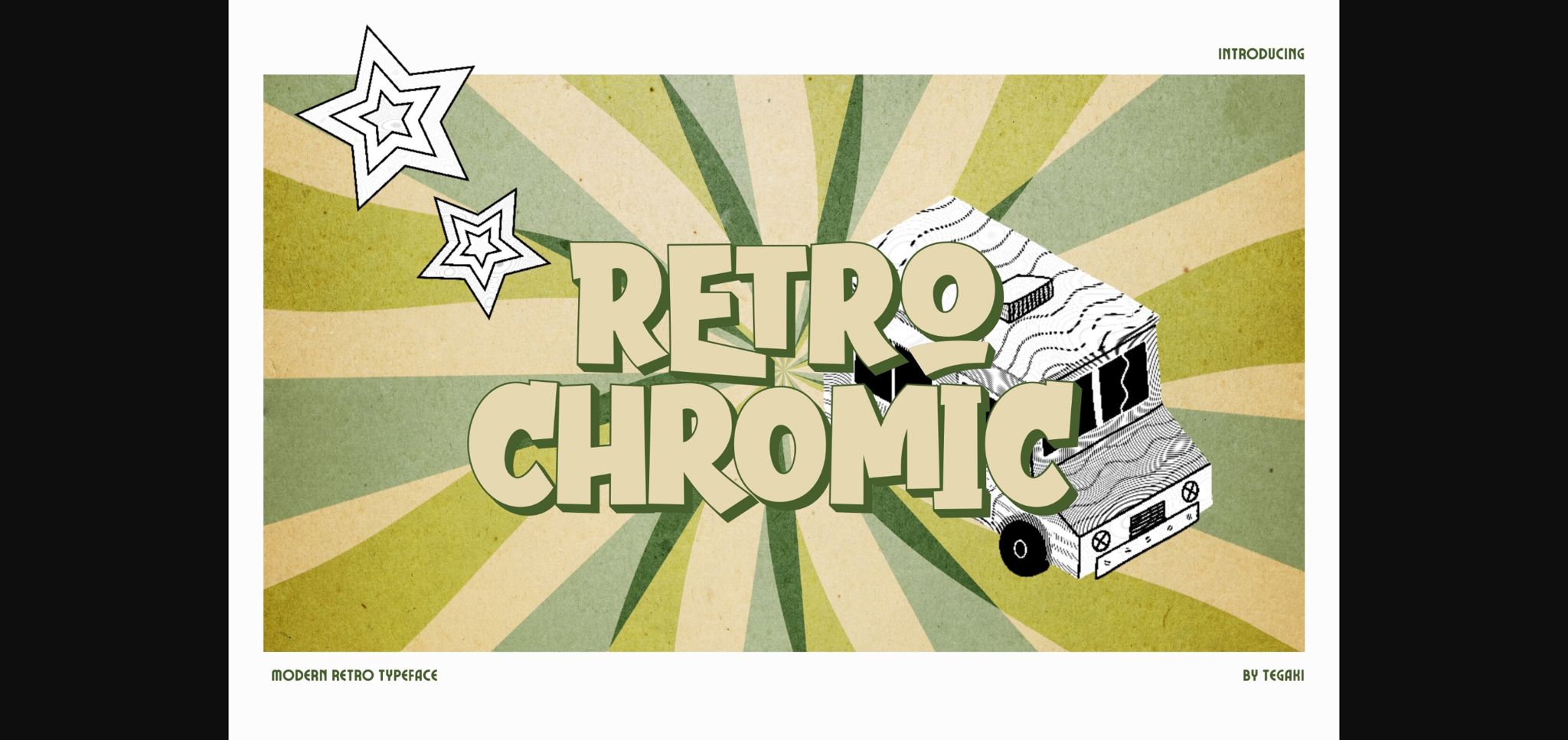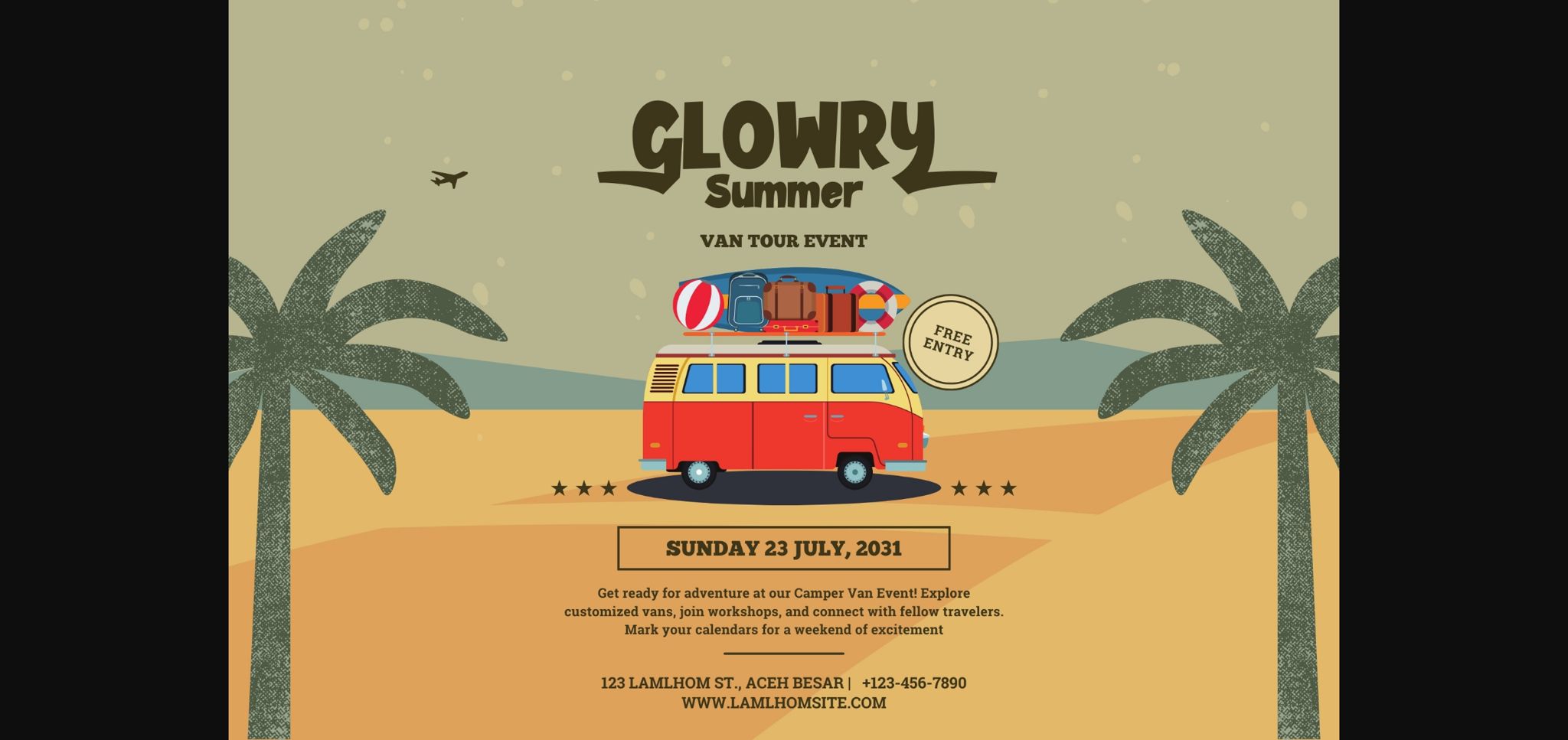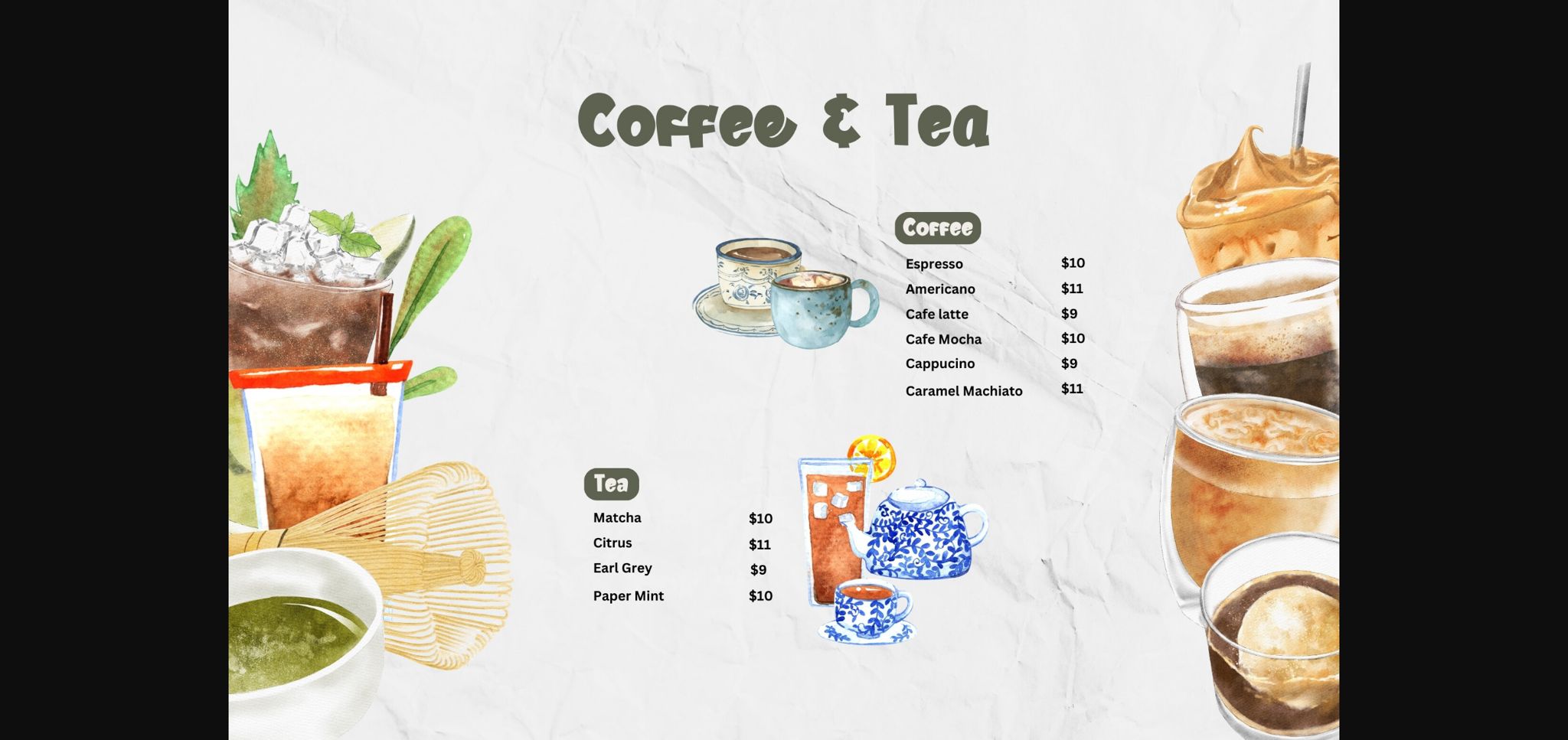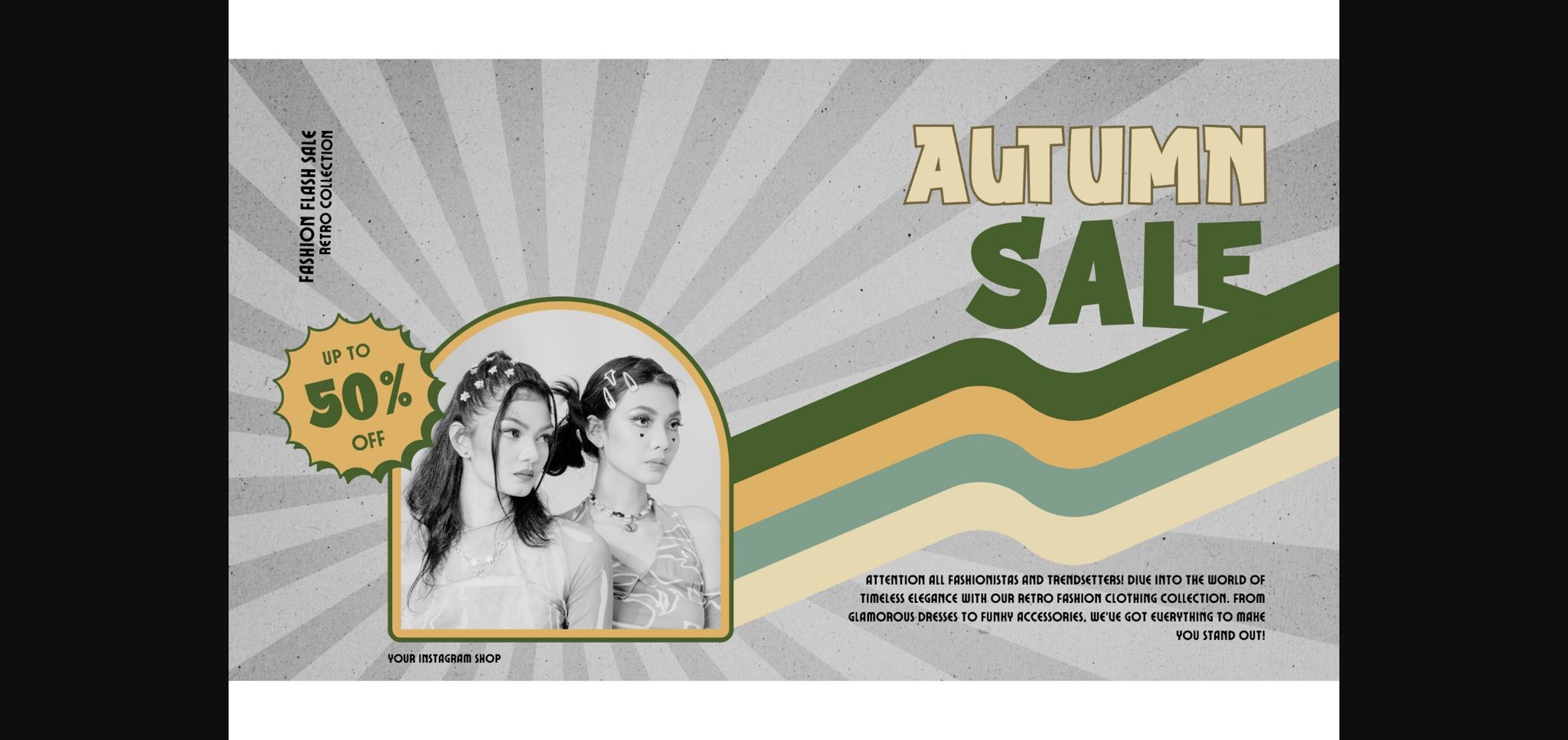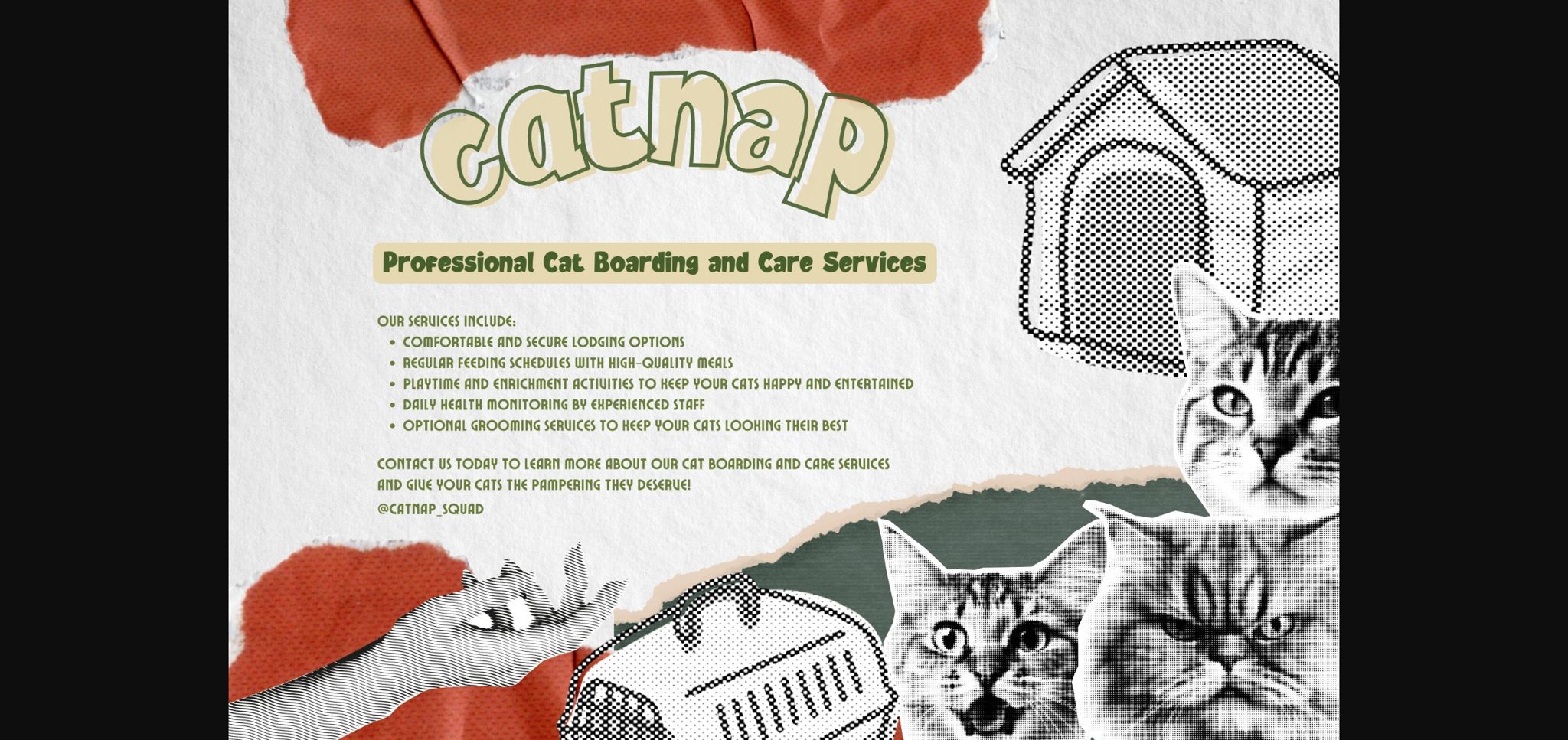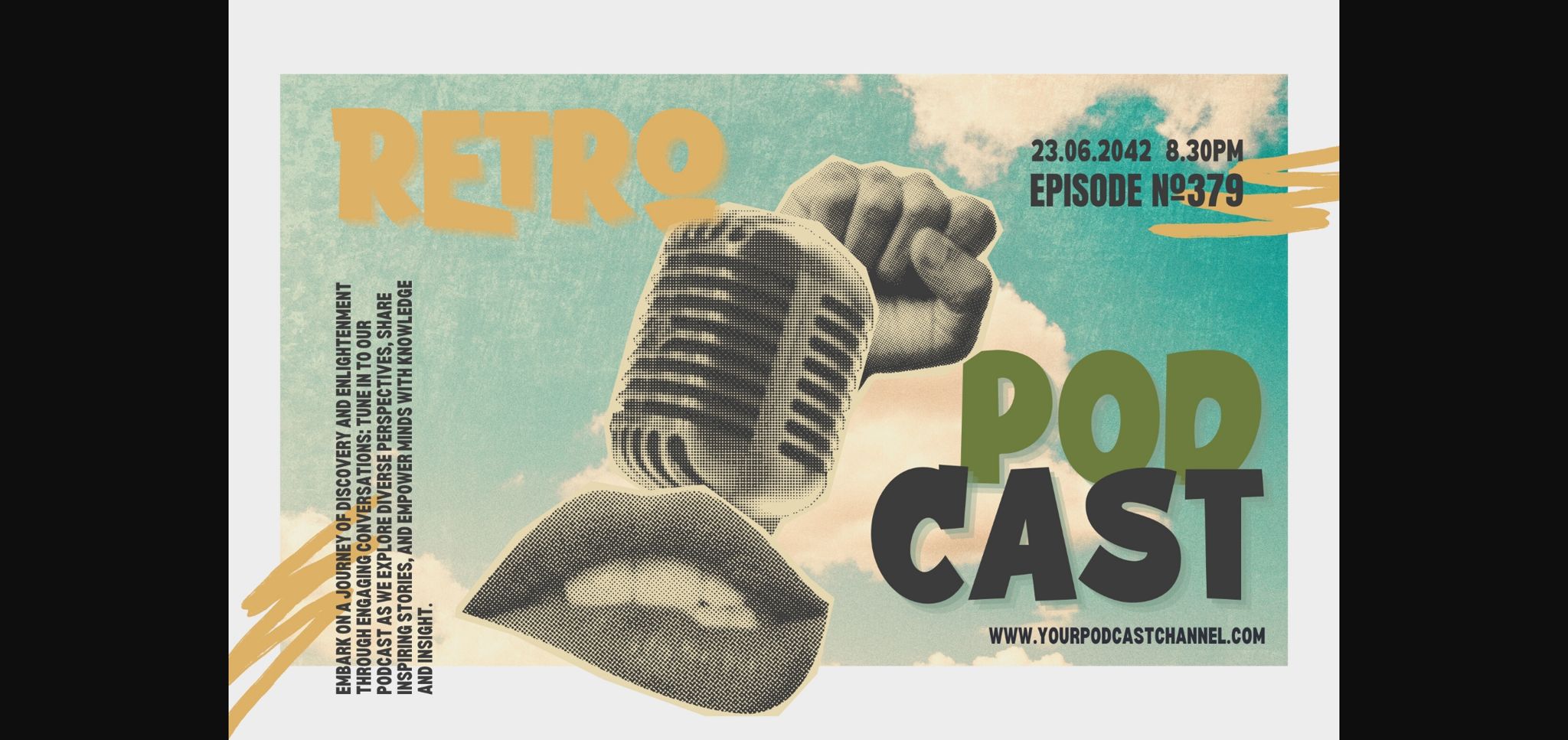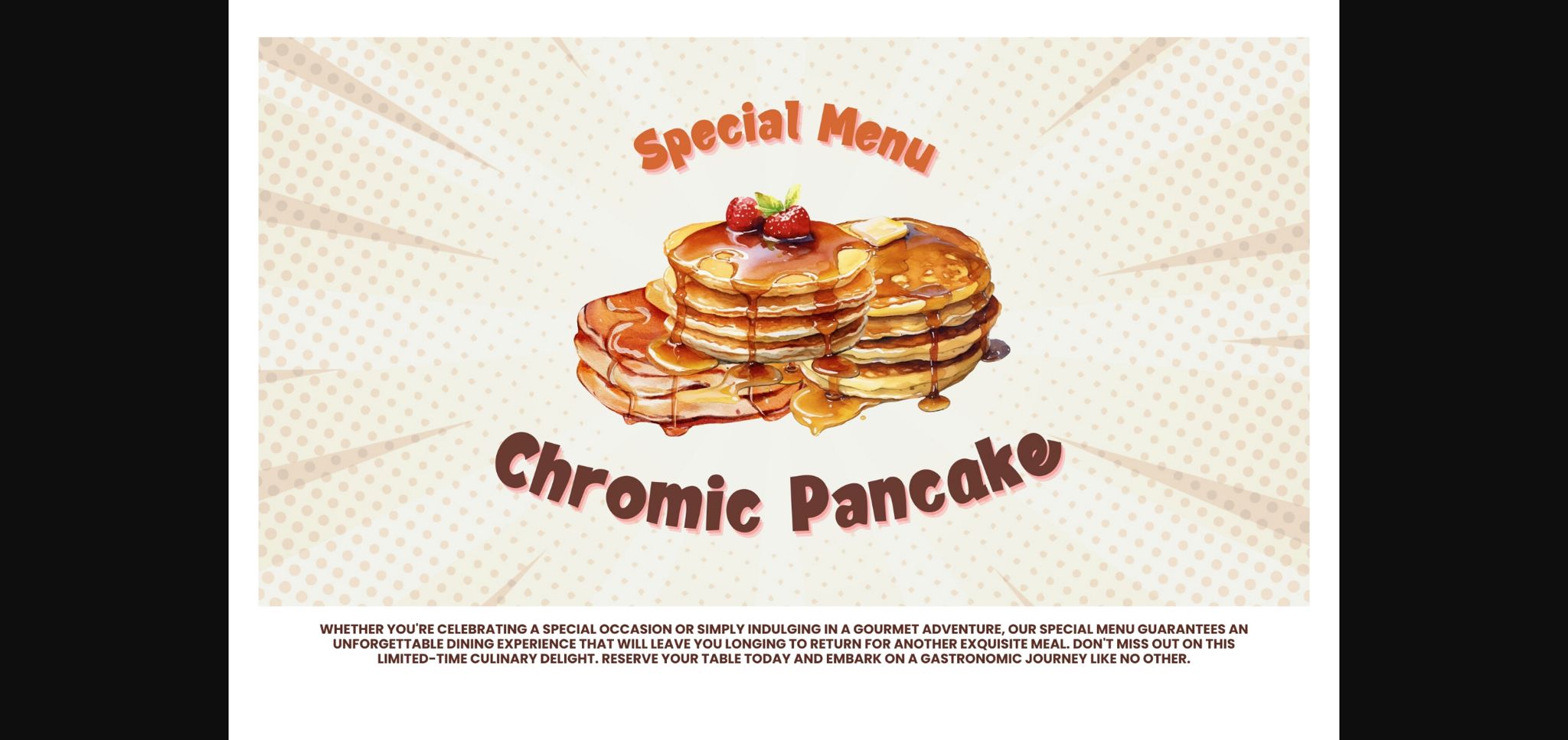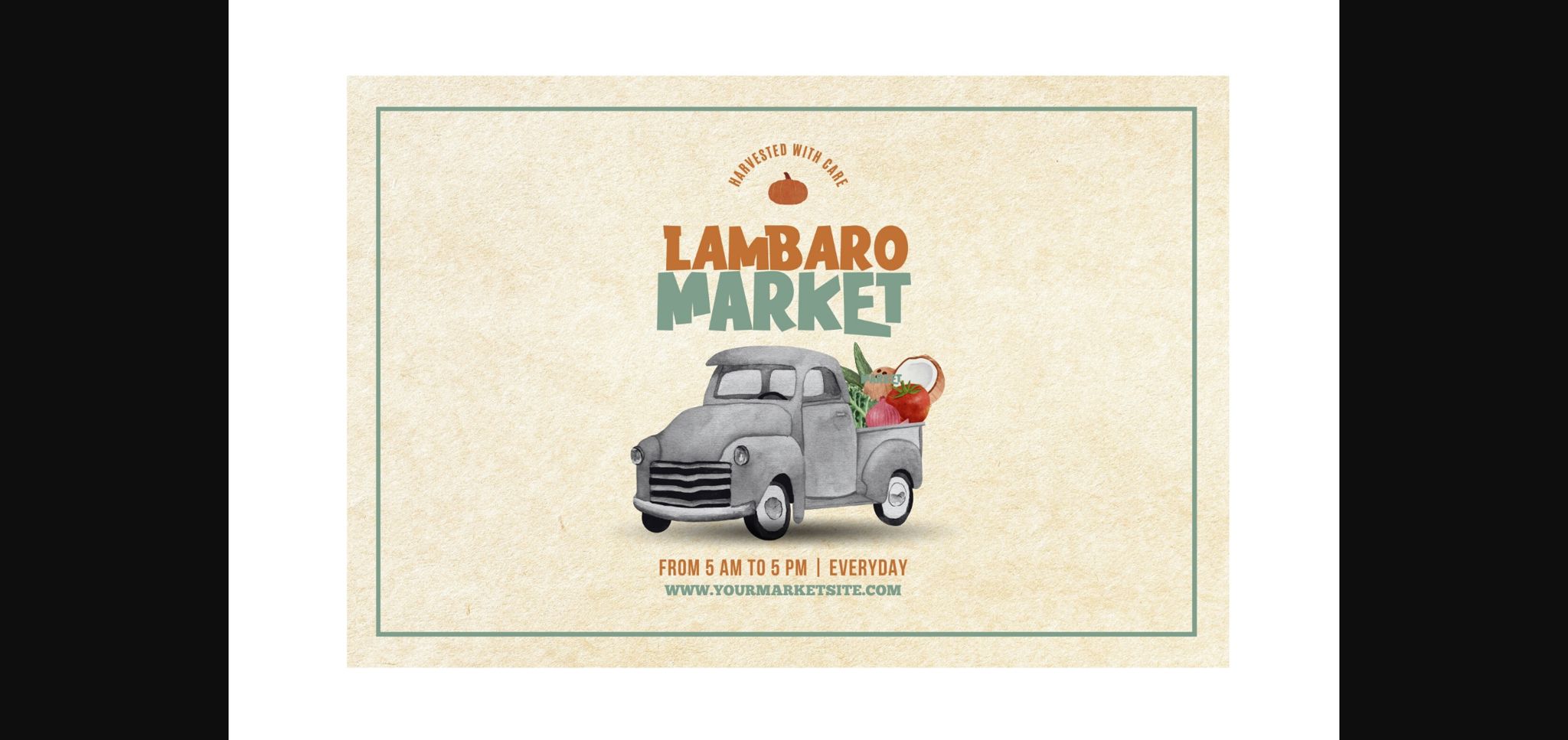
Retrochromic Font
About Retrochromic Font
Elevate your design game with Retro Modern Font! Packed with alternate characters, ligatures, and extended Latin characters, this font brings a unique blend of vintage charm and contemporary style to your projects. Plus, with an extra extrude style option, you can effortlessly create eye-catching text effects that stand out. Upgrade your designs today and unleash your creativity with our versatile Retro Modern Font.